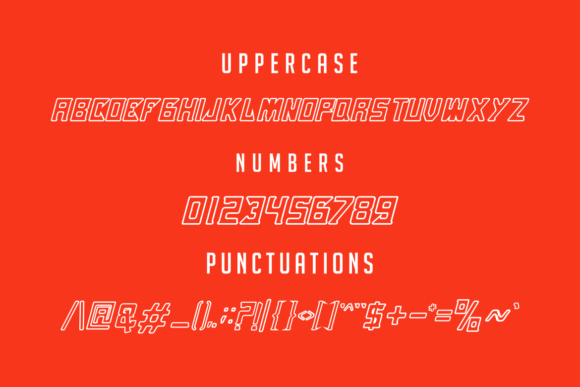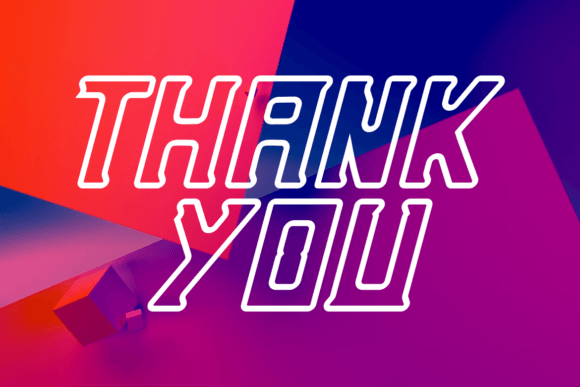
Have you ever stared at a blank page, struggling to find the perfect font to bring your idea to life? We’ve all been there. But what if I told you there’s a font that can make even the most mundane topic look cool and modern?
Enter the Fonsans Line Font, a sleek and sophisticated display font designed to elevate any creation. Whether you’re a seasoned designer or just starting out, this font is an incredible asset to your library. With its versatility and modern aesthetic, the Fonsans Line Font is the perfect addition to your design toolkit.
As a designer, you know how much of a difference a great font can make. That’s why the Fonsans Line Font is a valuable addition to any project. Its clean lines and modern feel make it perfect for a wide range of applications, from logos and branding to digital signage and advertising.
Fonsans Line Font Key Features
- Font Family: Fonsans Line is a sans-serif font family designed for clear readability.
- Unique Characteristic: Fonsans Line font features a unique line-based design that provides exceptional legibility, especially in body text.
- Style Variations: Available in multiple styles, including regular, italic, bold, and bold italic, offering flexibility for various design needs.
Fonsans Line Font Review
As a designer, I’ve had the chance to work with the Fonsans Line Font, and I’m excited to share my honest review with you. ✨
- ✨ Fonsans Line Font has a clean and modern aesthetic that makes it perfect for a wide range of designs, from digital interfaces to print materials.
- ✨ The font is highly legible, making it ideal for body text and captions.
- ✨ The font family is well-suited for titles and headings, with a range of weights and styles to choose from.
- ⚠️ Fonsans Line Font may not be the best choice for complex typography or highly customized designs, as it’s a relatively simple font.
- ⚠️ The font family may not have as many language support options as some other fonts, which could be a limitation for multilingual designs.
I really like the Fonsans Line Font for its clean and modern look. It’s a great choice for a wide range of designs, but may not be the best fit for every project. Overall, I’d recommend it for designers who want a simple, yet effective font for their designs.
Tips for Getting the Most Out of Fonsans Line Font
To get the most out of Fonsans Line Font, use it for headings, titles, and body text. This font is ideal for creating clean and modern designs. Use it in combination with other fonts to create a visually appealing design. Experiment with different font sizes, colors, and styles to create a unique look.
Fonsans Line Font is ideal for creating modern and clean designs, such as: